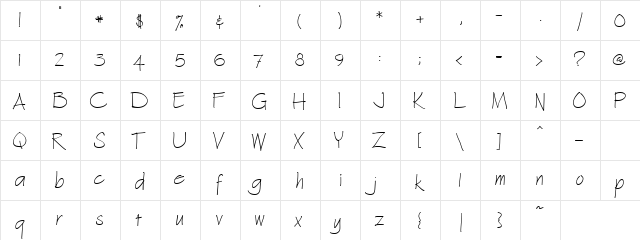
Architext Regular
Design Context for Architext Typeface
Architext is a composed and adaptable typeface that performs quietly and consistently across a wide range of design contexts.
Pro Tip: Pair Architext with a font of contrasting weight or personality to build a more expressive typographic hierarchy.